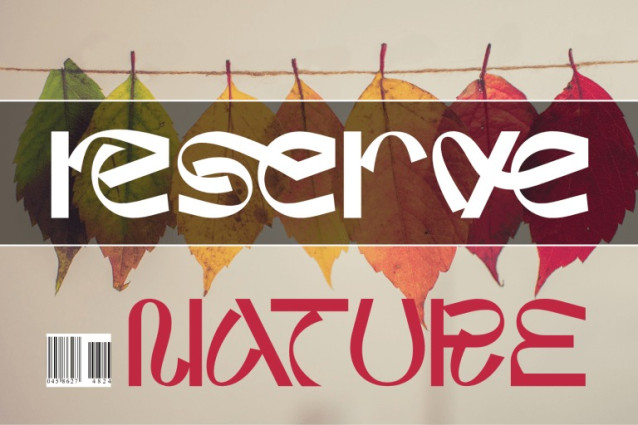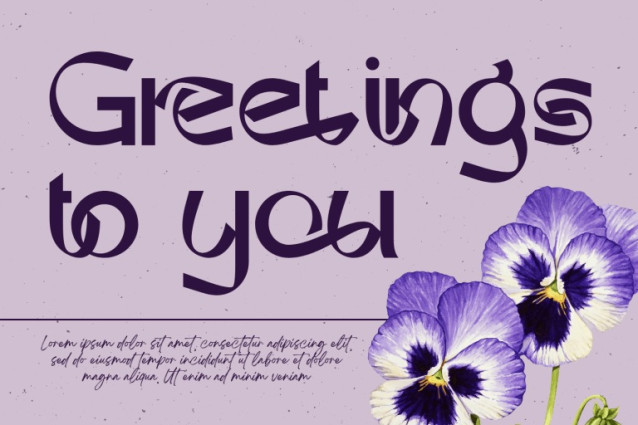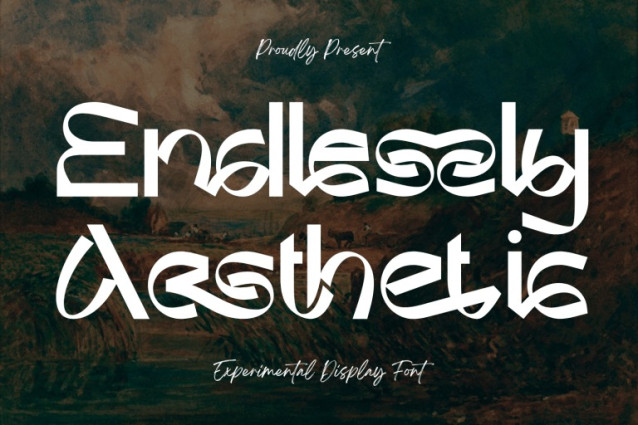
Endlessly Aesthetic Font
Endlessly Aesthetic Font – Unique Font – A Unique Abstract Decorative Font, a bold experimental decorative display font that merges geometric precision with artistic abstraction. Its letterforms feature a striking interplay of curves, sharp angles, and irregular flows, creating a futuristic yet handcrafted aesthetic. Perfect for editorial headlines, music album covers, experimental branding, fashion campaigns, and creative posters, this font is designed for those who dare to stand out with unconventional typography.
Uppercase & Lowercase Letters
~100 Special Ligatures
Accented Characters for multilingual support
🔤About 100 ligatures combined with Stylistic Alternates Font: